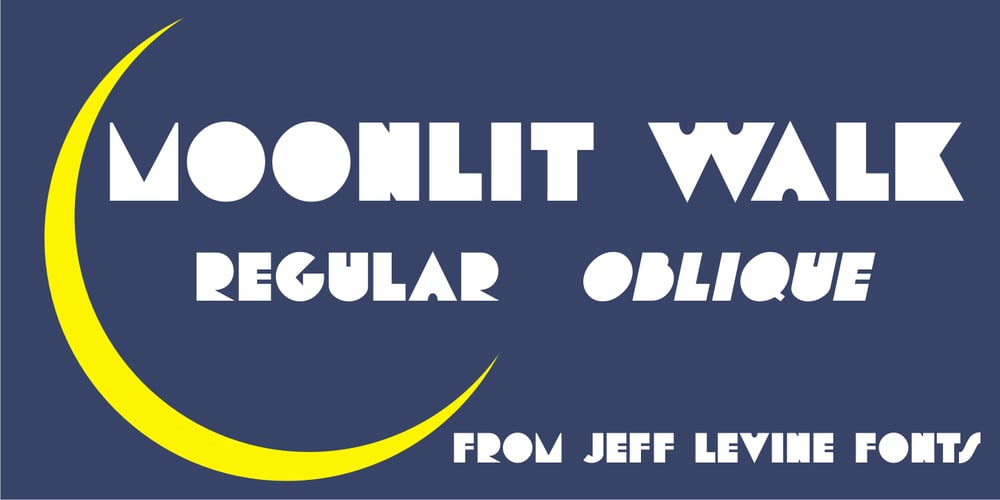
Moonlit Walk JNL
Moonlit Walk JNL font
Moonlit Walk JNL Font Family was designed by Jeff Levine and published by Jeff Levine. Moonlit Walk JNL contains 2 styles and family package options. Another variant to the ever-popular Art Deco sans lettering with solid centers (no counters) was found in the hand-lettered title on the cover of the 1933 song “There’s A Ring around the Moon”. This became the basis for the digital typeface Moonlit Walk JNL, available in both regular and oblique versions.